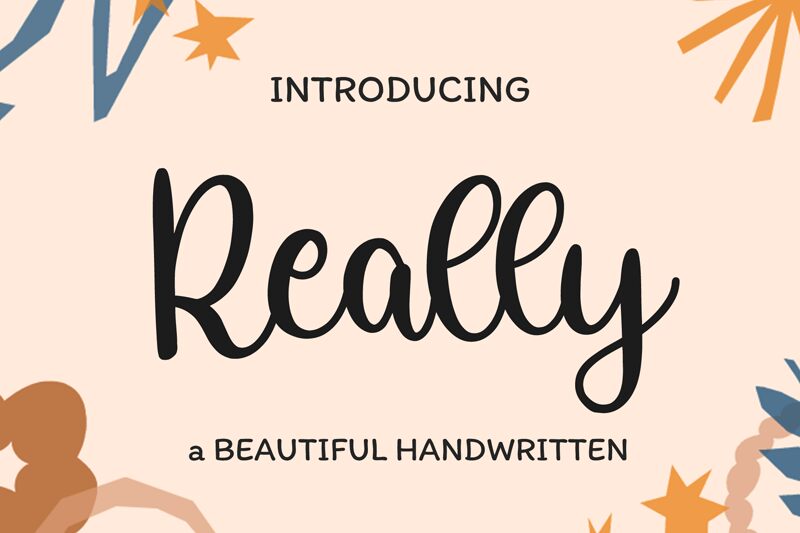
Introducing Really, a captivating handwritten font by Bearytype. With its whimsical strokes and authentic charm, this font adds a touch of playfulness to any project. From children's books and greeting cards to logo designs and social media graphics, Really is the perfect choice for projects seeking a friendly and approachable feel. Its versatility shines through in both regular and bold variations, making it suitable for headlines, titles, or even body text. Whether you're creating an invitation or crafting an advertisement, let Really be the voice that brings your design to life!